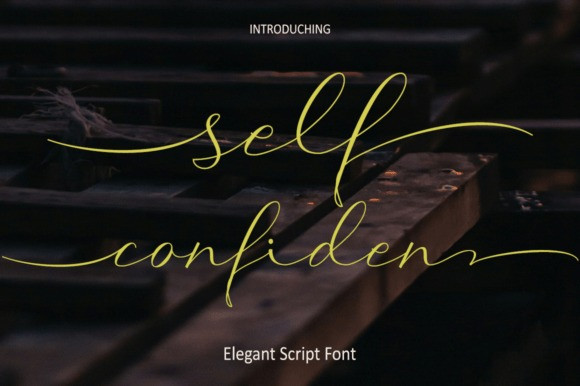
Self Confident Font
Self Confident Font is a fresh & modern new script with a handcrafted calligraphy style, decorative characters and dancing baseline! Very pretty for invitations such as greeting cards, branding materials, business cards, quotes, posters and more!!